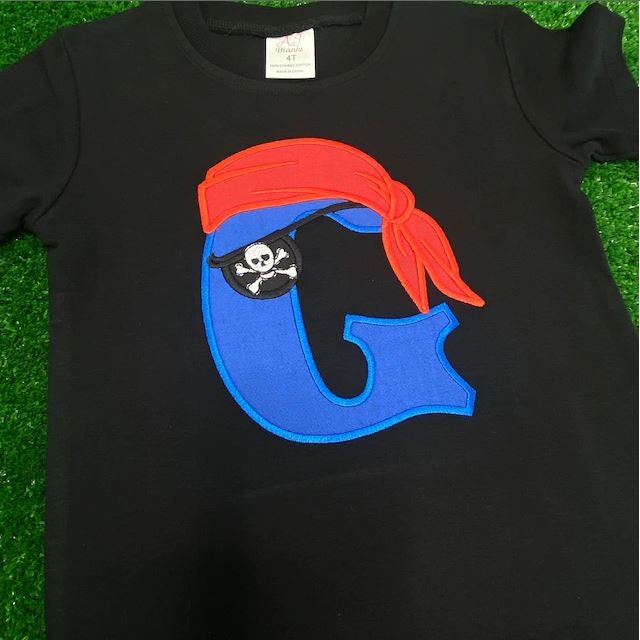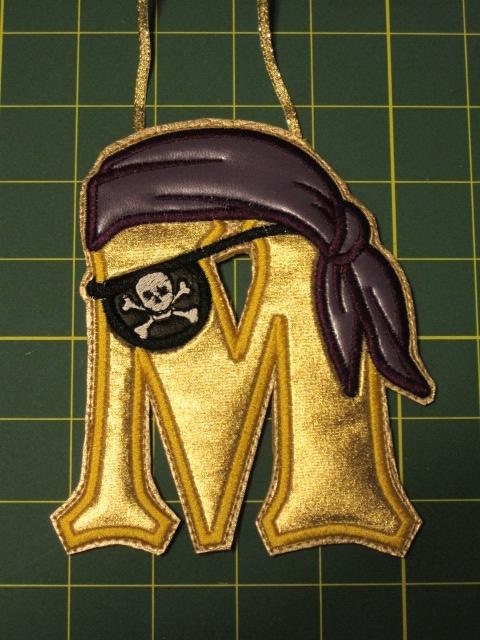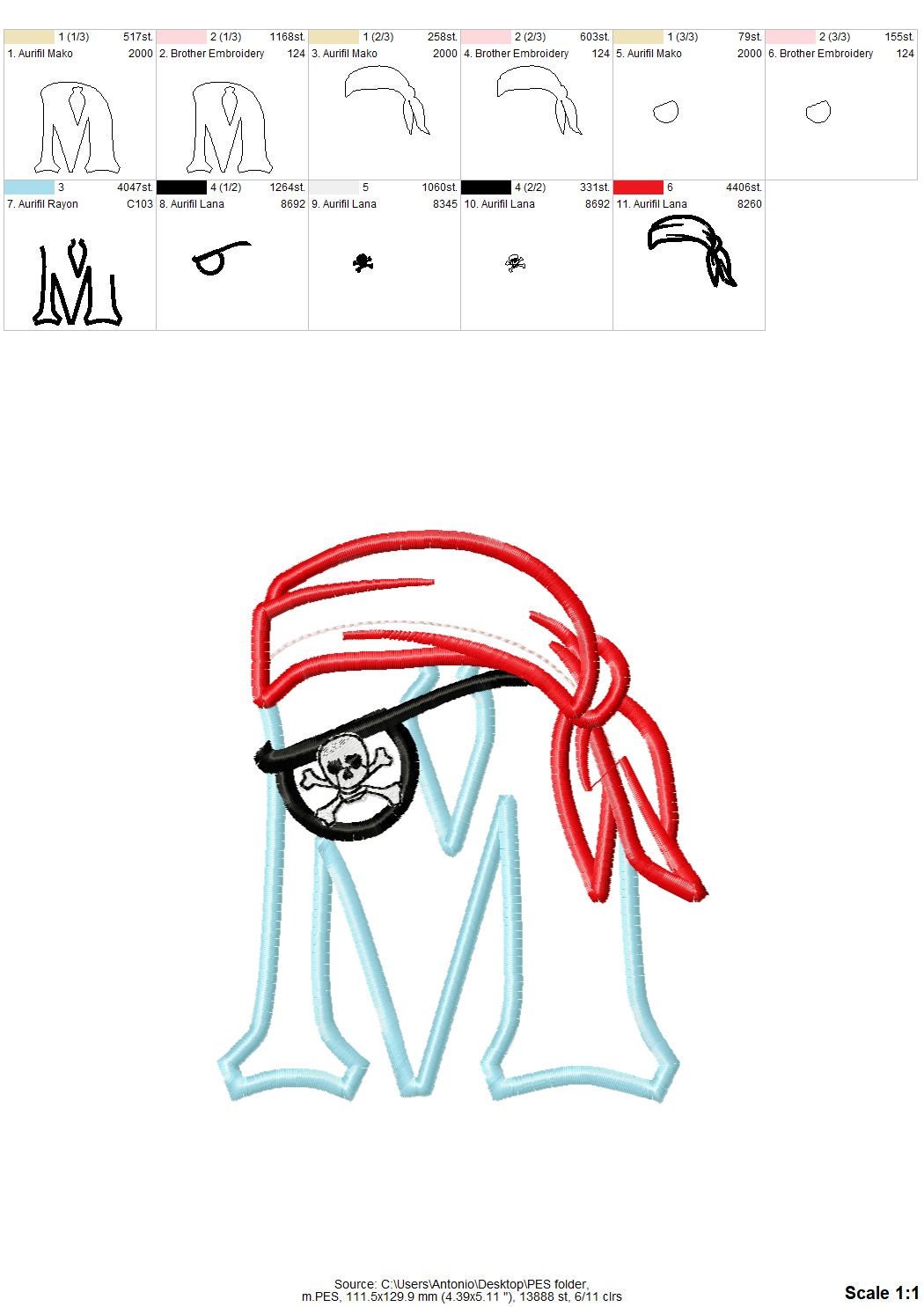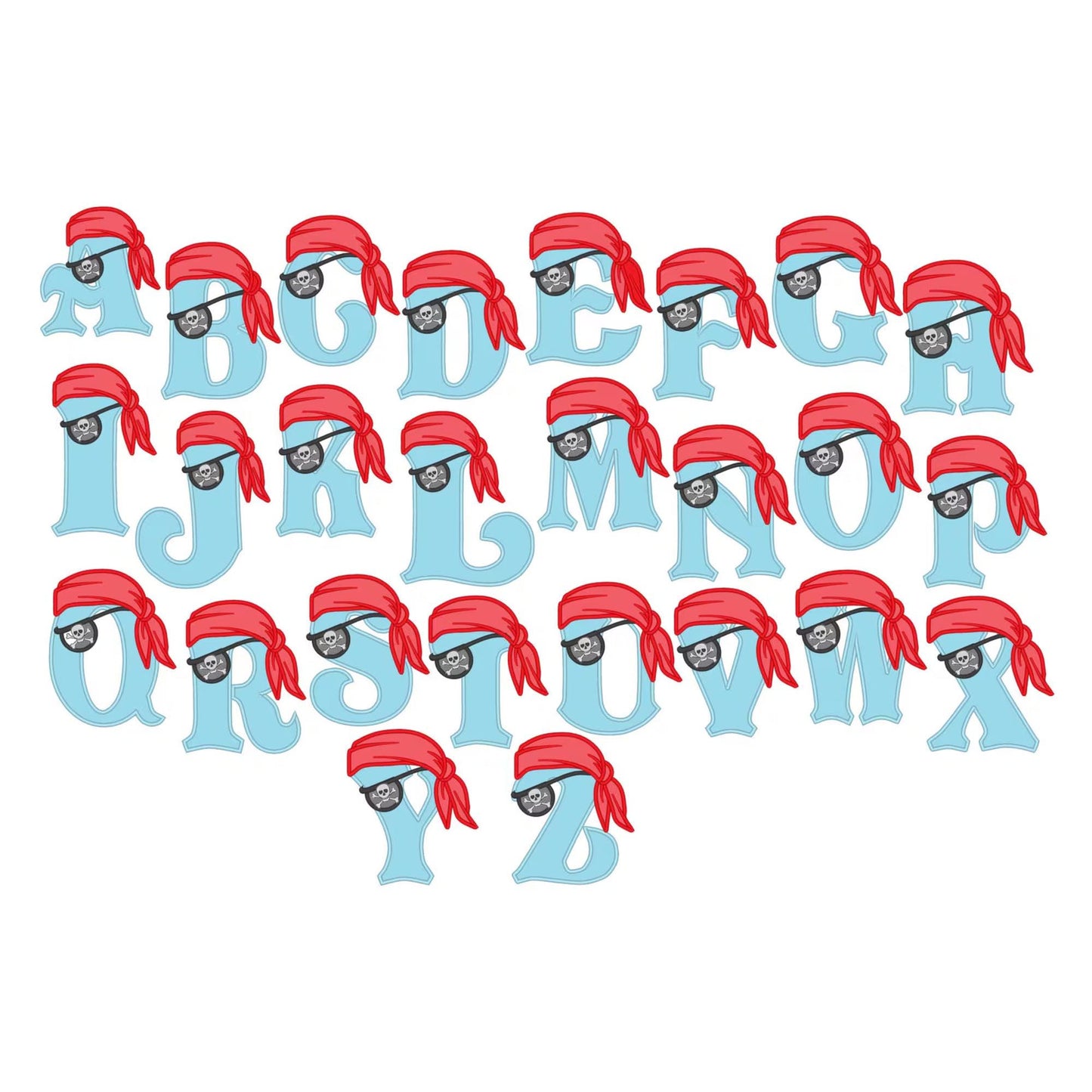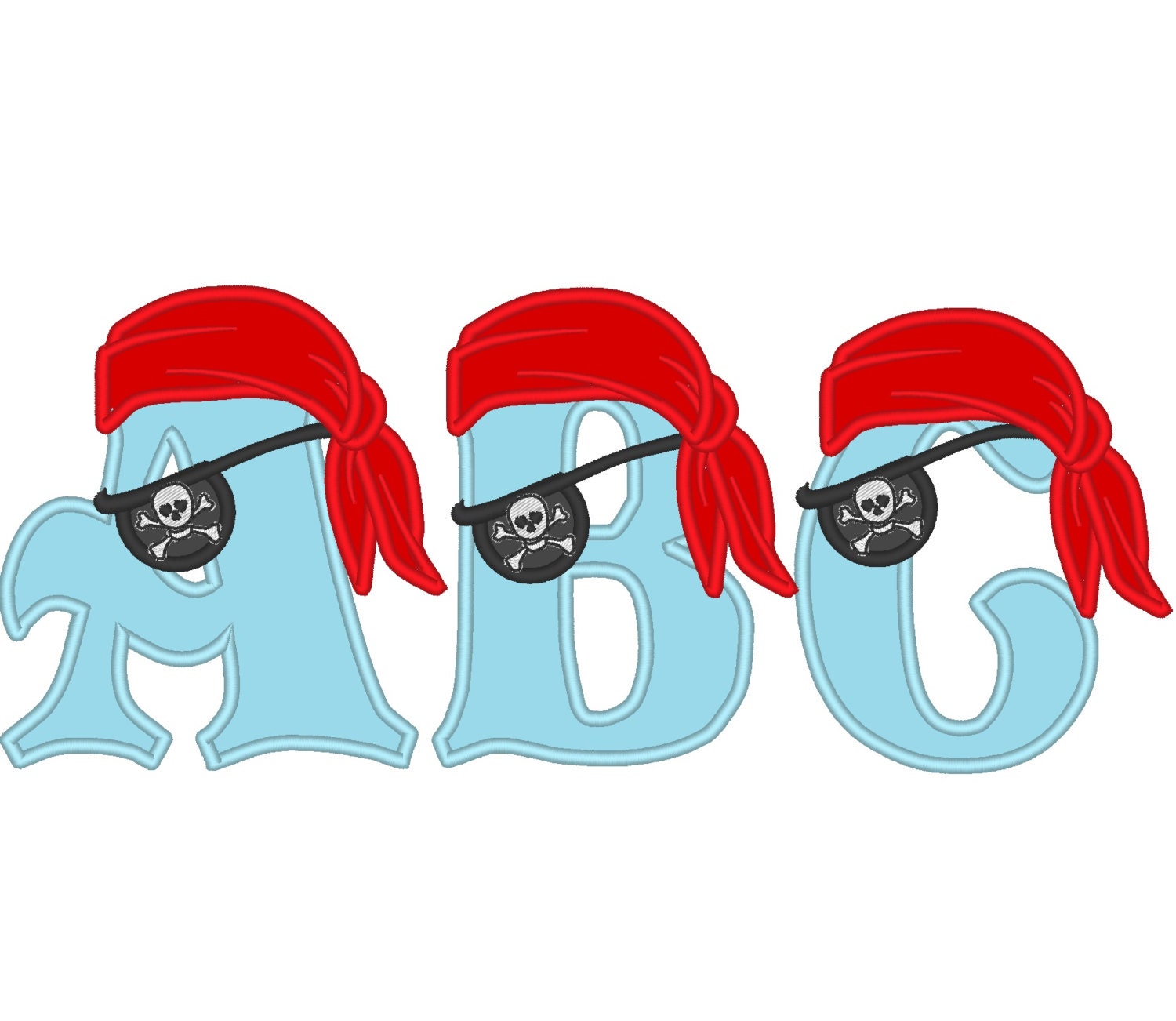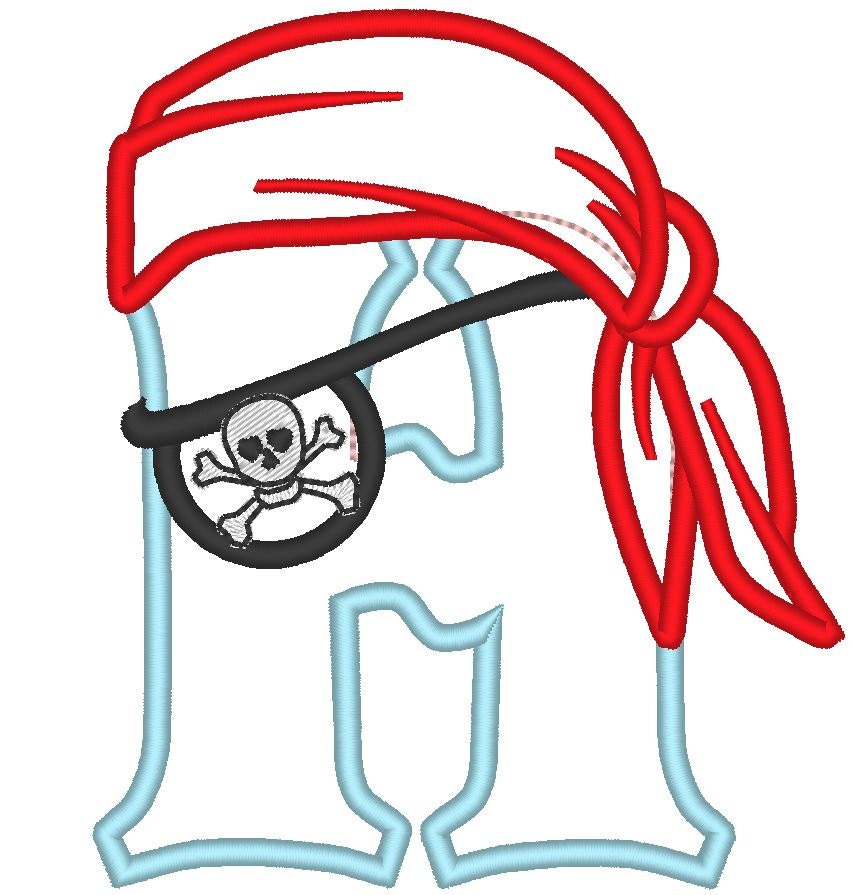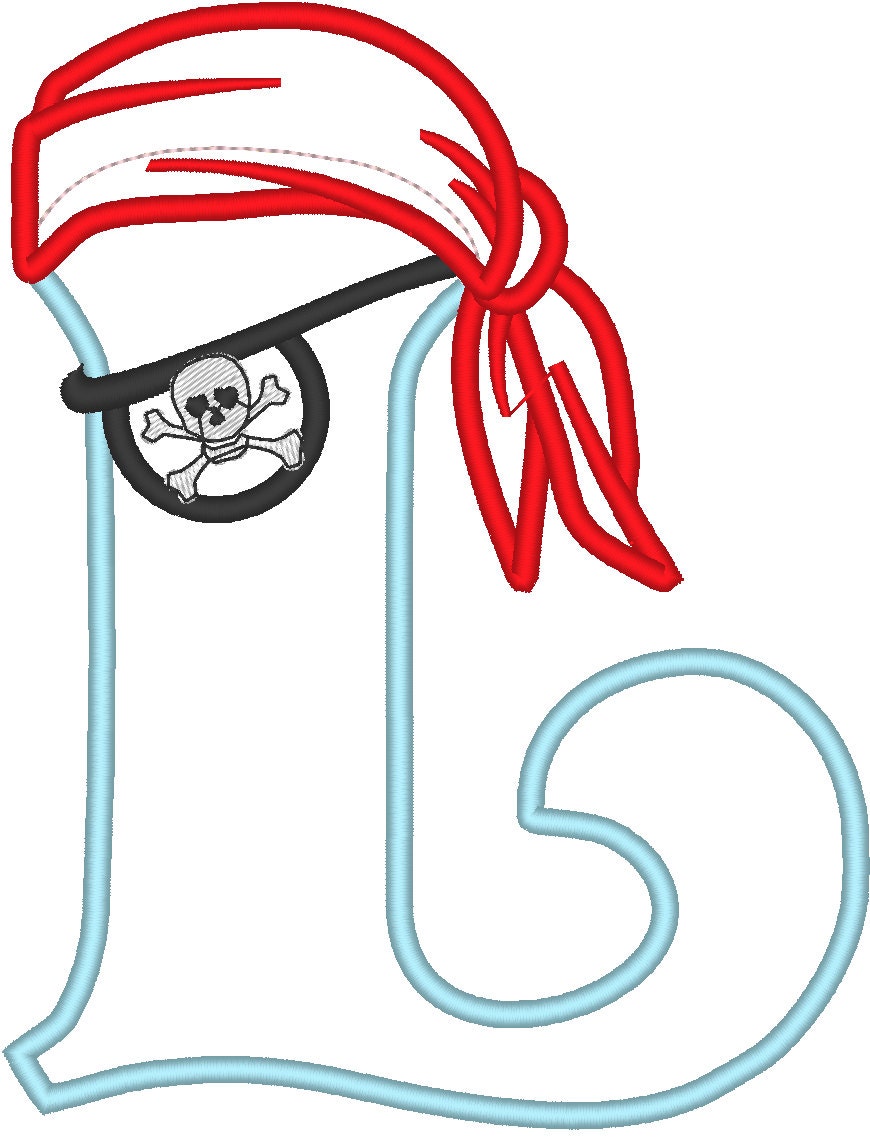
Or click to open the linkA pirate applique alphabet with a bandanna on every letter. Fun for boys' shirts, pirate parties and kids' room decor.
All 26 letters, A to Z, in two sizes: 5 and 6 inches. Each letter is an applique wearing a pirate bandanna.